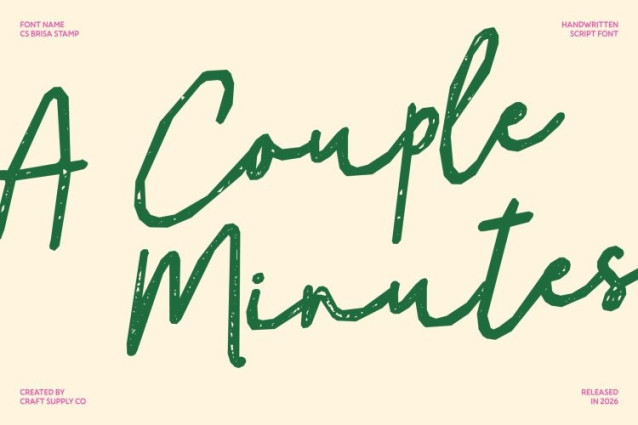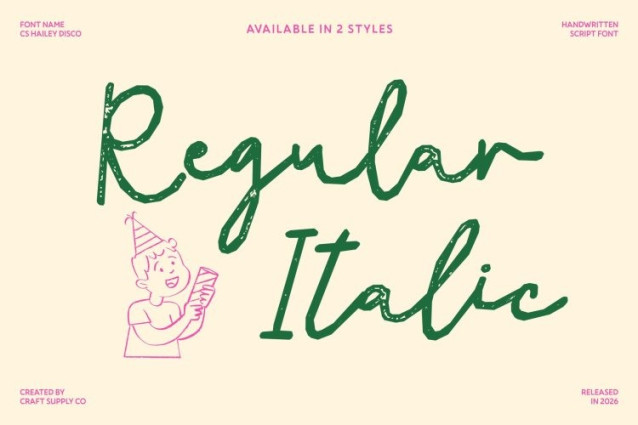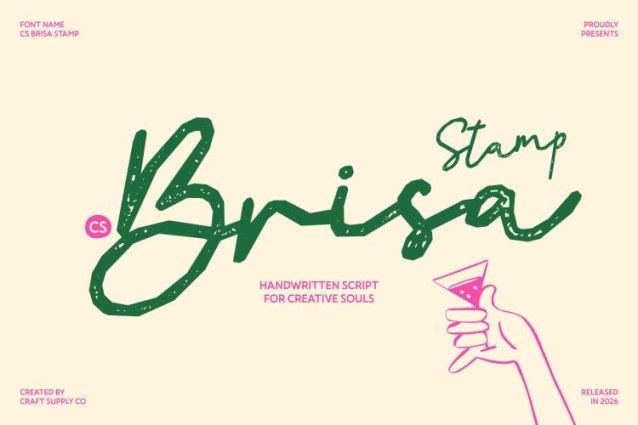
CS Brisa Stamp Font
CS Brisa Stamp Font – This is an elegant monoline script font defined by smooth, flowing lines and a refined rhythm. Each letter transitions gracefully into the next, creating a harmonious visual flow that captures beauty and sophistication. Enhanced with a subtle stamped texture, the font gains a handcrafted depth that enriches its elegant and timeless appearance.
Graceful Curves for Refined Expression
Every stroke in this font is carefully designed to express balance and elegance. Its consistent monoline weight and gentle curves create a calm, confident presence, while the textured stamp effect adds a soft tactile character. This combination maintains the font’s clean structure while introducing a warm, artisanal touch.
Stylish Rhythm with Textured Sophistication
The rhythmic motion of gives it a contemporary yet classic appeal. Smooth letter connections produce a natural sense of movement, while the stamped texture adds subtle visual richness. The result is typography that feels both expressive and polished, perfect for designs that seek refined personality.
Perfect for Romantic and Luxury Designs
From wedding invitations and beauty branding to fashion editorials and elegant packaging, this font adapts beautifully to projects that require grace and charm. Its flowing script style paired with a textured finish makes it a versatile choice for designers looking to create typography that feels sophisticated, romantic, and effortlessly stylish.